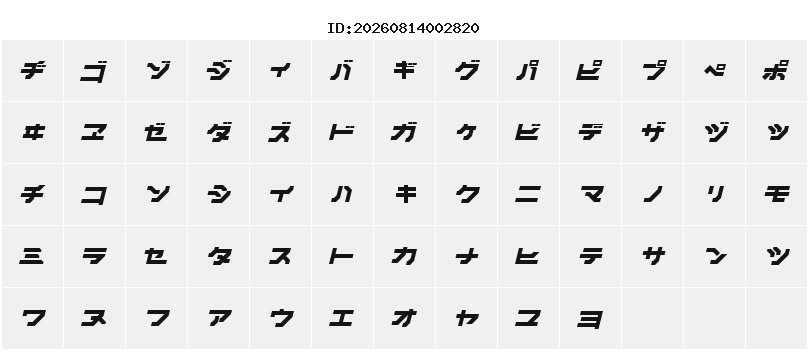
SynthekKana LDR Preview
• Font Name: SynthekKana LDR
• Full Font Name: SynthekKana LDR
• Designer: Neoqueto
• Manufacturer: Michał "Neoqueto" Nowak
About SynthekKana LDR.ttf
SynthekKana LDR.ttf is a modern, elegant sans-serif font designed for ultimate readability and visual harmony. Perfect for branding, headlines, web design, and print materials.